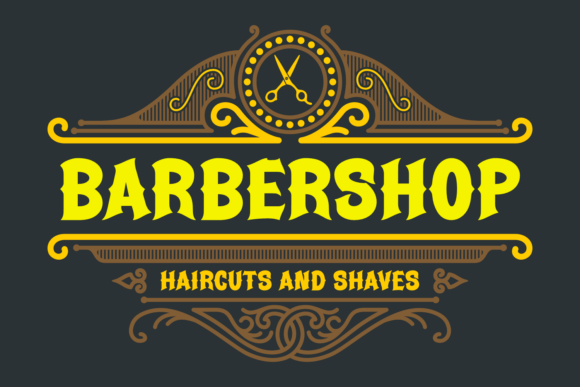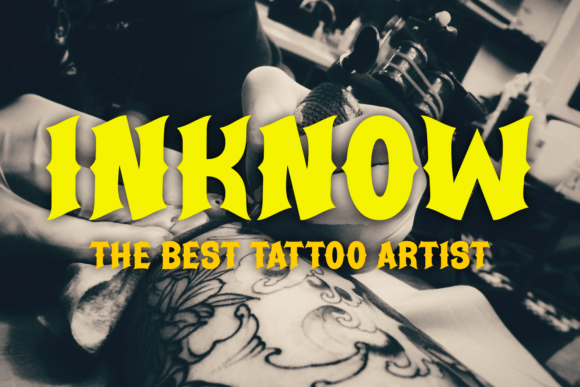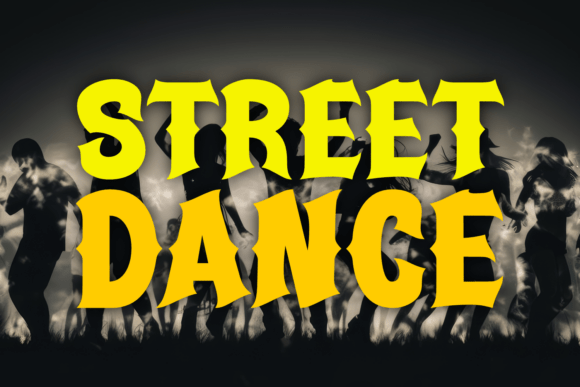
Introduction to Midnight Western Font
As you sit down at your desk, ready to tackle a new creative project, the blank page stares back at you. Suddenly, the sound of a dusty saloon door swings open in your mind, and you’re transported to the Wild West. You envision a bold, eye-catching poster that screams ‘Wild and Free.’ That’s when you need the perfect font – one that embodies the rugged charm of the Old West. Enter the Midnight Western Font, a game-changing design resource that brings a dramatic, vintage flair with a distinct Western twist.
This high-quality font is a must-have for designers looking to add a touch of sophistication and daring edge to their work. With its jagged serifs, sharp angles, and bold presence, the Midnight Western Font is perfect for projects that demand attention. Whether you’re working on a free download or a paid design, this font’s intricate border elements and classic styling make it an invaluable asset for any creative project.
By incorporating the Midnight Western Font into your design, you’ll be able to transport your audience to a bygone era, where the law was tough and the characters were tougher. Its transparent background and high-quality design make it a versatile tool for designers of all levels, ready to be downloaded and put to work on your next creative project.
Key Features of Midnight Western Font
- High-quality, hand-drawn design ideal for creative projects requiring a unique, vintage aesthetic.
- Features a unique blend of Western and Gothic elements, perfect for projects that require a touch of mystery and elegance.
- Perfect for designers working on a wide range of creative projects, from posters and flyers to book covers and websites.
Honest Review: Midnight Western Font
I recently had the chance to try out the Midnight Western Font, and I must say it’s a pretty interesting addition to any design project. This font is perfect for anyone looking to add a touch of the Wild West to their creative project. With its high-quality design and transparent background, it’s easy to see why this font is a popular design resource.
- ✨ Unique and distinctive design: The Midnight Western Font has a one-of-a-kind style that’s sure to grab attention.
- ✨ High-quality design: The font is crisp and clear, making it perfect for any design project.
- ⚠️ Limited versatility: While the font is great for a specific type of design project, it may not be suitable for other types of projects.
- ⚠️ May not be suitable for small text: The font is quite ornate, which can make it difficult to read when used for small text.
Overall, I think the Midnight Western Font is a great addition to any design project. While it may have some limitations, its unique design and high-quality make it a valuable resource for any designer looking to add a touch of the Wild West to their work.
How to Use Midnight Western Font
The Midnight Western Font is a high-quality design resource that offers a unique and creative way to add a touch of the Wild West to your projects. With its transparent background, this font is perfect for use in a variety of creative projects.
Tips for Getting the Most Out of Midnight Western Font
To get the most out of the Midnight Western Font, be sure to use it in conjunction with other design elements that evoke the spirit of the Wild West, such as vintage textures and distressed effects.
The Midnight Western Font is perfect for use in a wide range of creative projects, including: